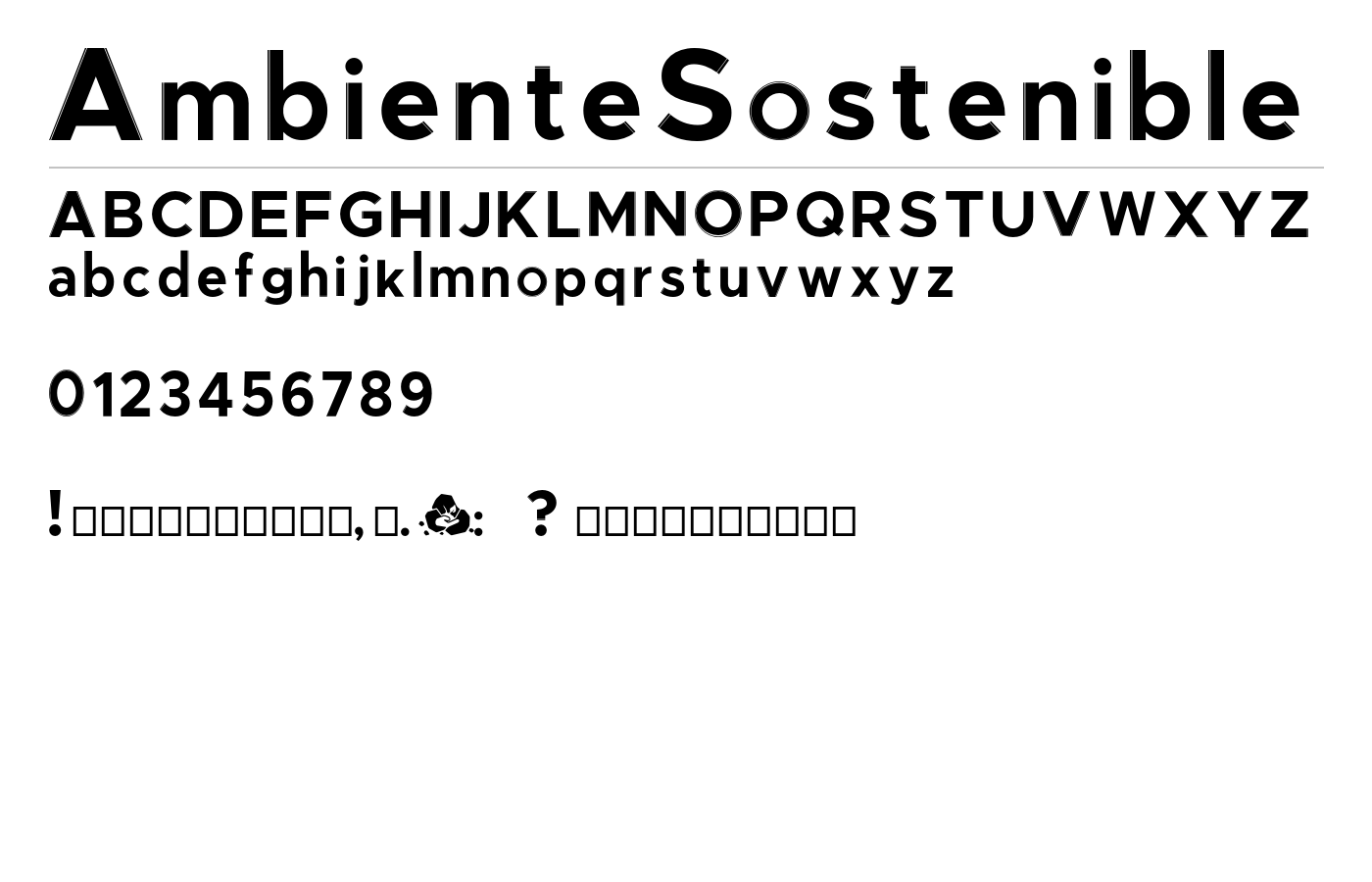
AmbienteSostenible is a modern sans serif font characterized by its clean, geometric letterforms and medium weight that create a balanced and approachable appearance. With its open, regular width and high legibility, this font works well for eco-friendly branding, editorial design, and digital interfaces, where clarity and a contemporary, trustworthy feel are essential. Its simple yet distinctive shapes make it ideal for both headlines and body text, offering versatility across various design projects focused on sustainability and innovation.
AmbienteSostenible Font
About AmbienteSostenible Font